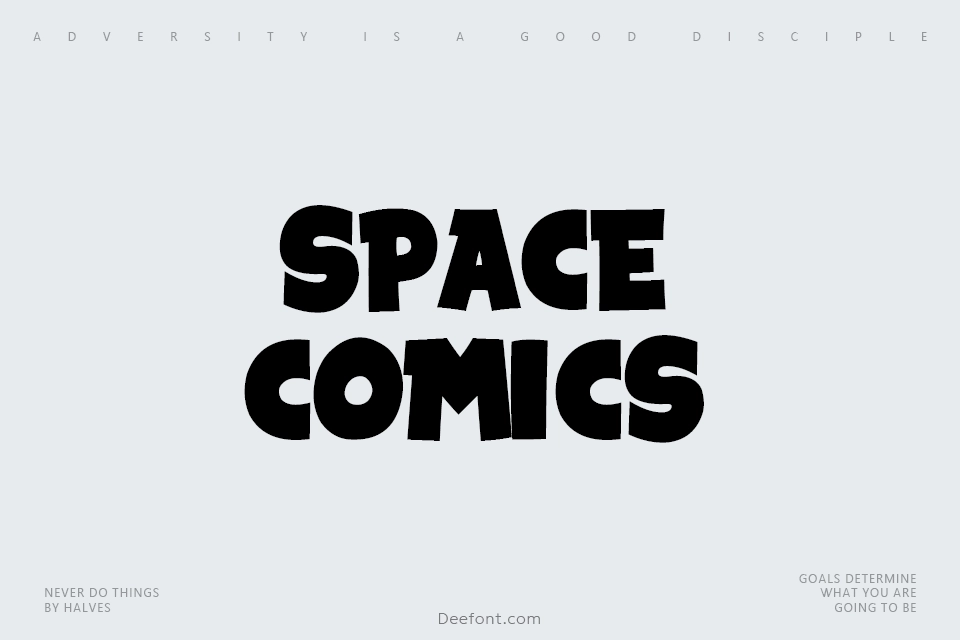
Space Comics Font
Space Comics is a bold, playful display font featuring thick, rounded characters with a comic book influence. The typeface is characterized by exaggerated curves and a friendly, approachable appearance ideal for creative projects. With its distinctive whimsical aesthetic, Space Comics delivers consistent style across uppercase, lowercase, and special characters, making it perfect for headers, logos, posters, and comic-inspired designs that demand visual impact and charm.